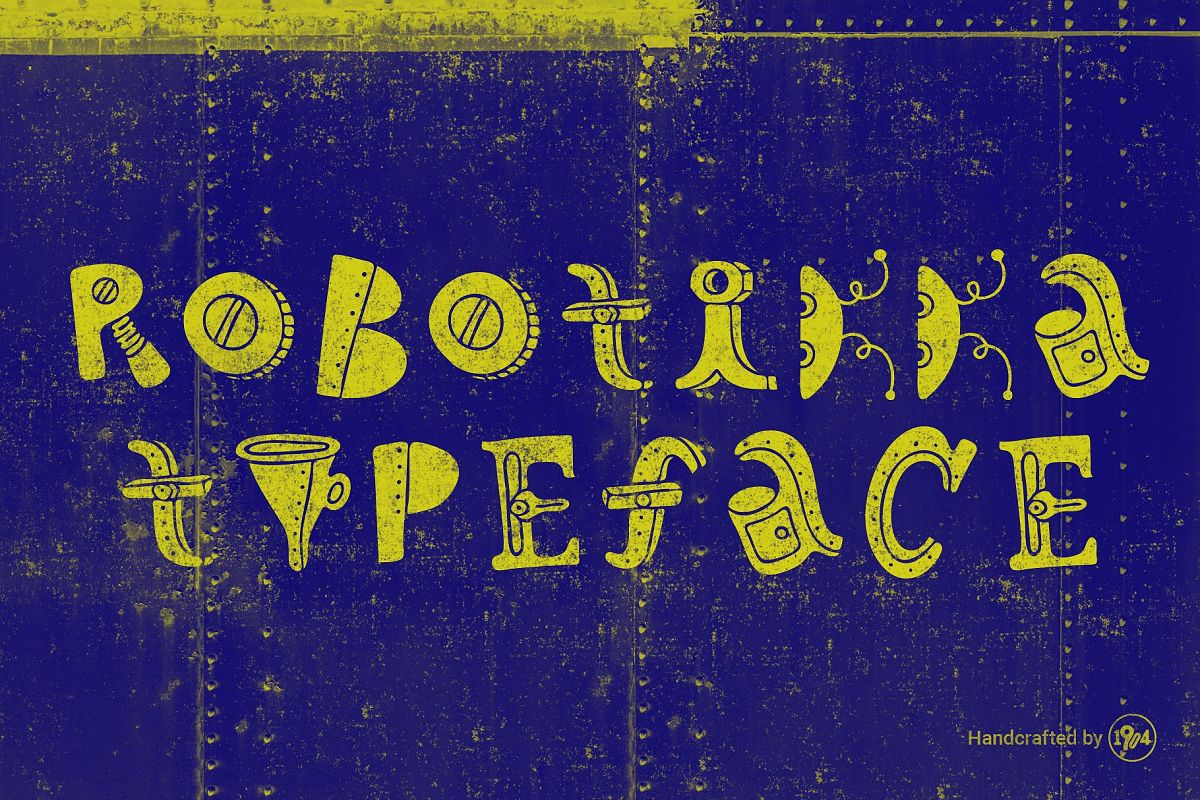
Robotikka
RobotikkaFill
RobotikkaOutline
Robotikka is a handcrafted .otf typeface to be used in fun projects as children's books, editorial, along with illustrations, etc. Robotikka has 2 versions: Outline and Fill. They can be used combined or separately. Have Fun!